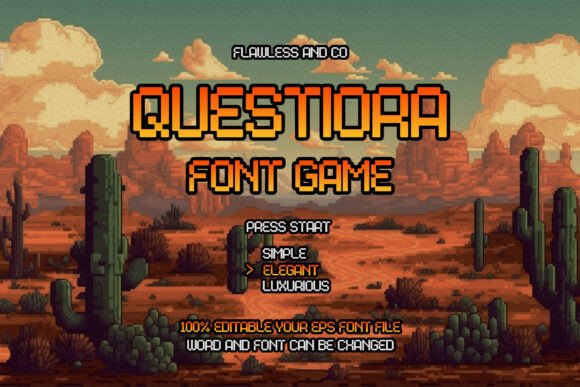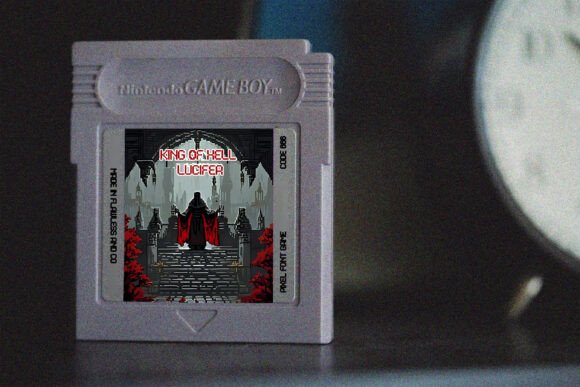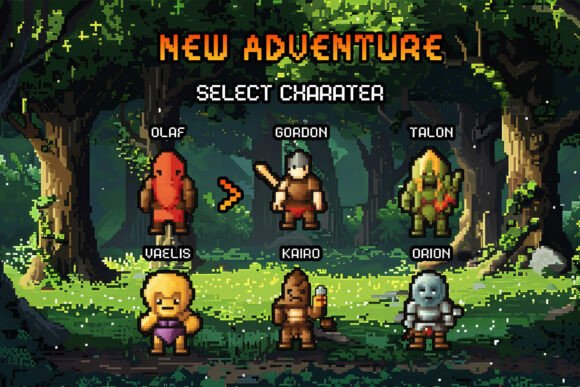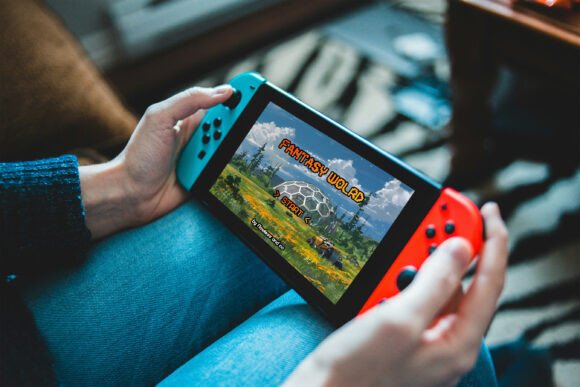
Questiora Font: Bold Pixel Typeface for Retro Game Design & Branding
About the Questiora Font
Step up your design game with Questiora Font, a font that exudes confidence and style. Questiora is a bold and dynamic game font designed to bring excitement and adventure to your designs. Its strong and stylish letterforms make it suitable for game titles, esports logos, streaming graphics, posters, and digital branding. Elevate your gaming aesthetics with the power of Questiora!
Questiora’s bold, angular forms excel in large-scale applications such as headlines, logos, and posters where its strong personality commands attention. It’s ideal for projects needing a powerful, energetic feel—think action games, sports brands, or technology companies aiming for a cutting-edge image. Avoid using it for body text or UI elements; its weight and strong contrast will hinder readability in smaller sizes or continuous text.
Pairing Questiora effectively requires considering its assertive nature. A clean sans-serif like Open Sans or Roboto provides a balanced contrast for supporting text, while a more playful, rounded sans-serif like Bebas Neue could enhance its energetic feel in certain applications. For a more sophisticated look, consider a classic serif such as Garamond or Times New Roman for smaller details.
Questiora’s core personality is undeniably bold and dynamic, conveying excitement and a sense of modern adventure. This makes it a powerful choice for brands wanting to project strength, innovation, and a youthful energy.